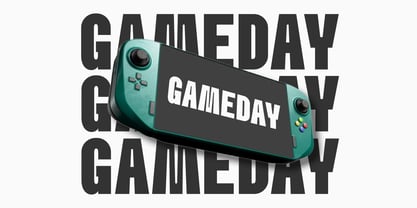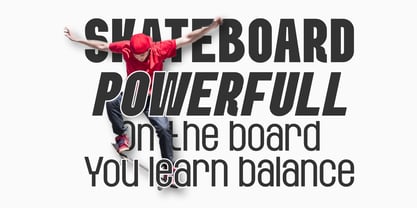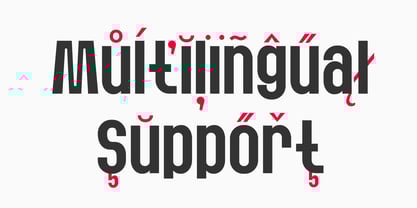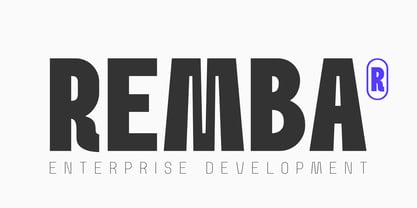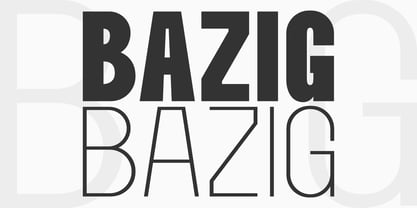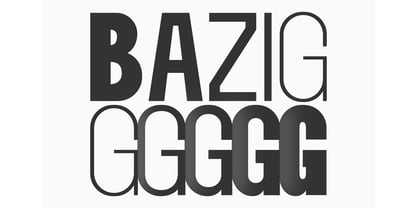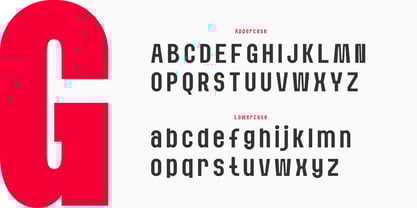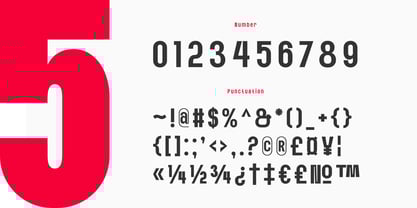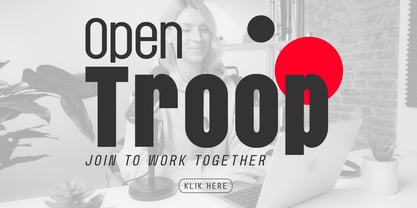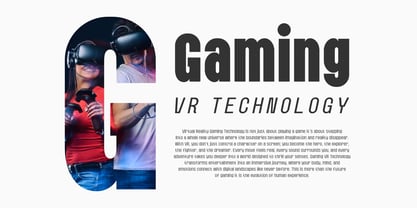
Bazig
by Sealoung
The Bazig Font Family was designed by Saiful Anwar and published by Sealoung. Bazig contains 10 styles and family package options. More about this family
Bazig Modern Sans Serif Family – Thin to Bold & Italic Bazig is a modern sans serif typeface family with a clean, elegant, and versatile look. It comes in styles from Thin to Bold, complete with Italic versions, giving you full flexibility for any design project. Designed with a perfect balance between sharp lines and minimalist forms, Bazig is ideal for both professional and creative use, such as: Branding & Logo Design Headlines & Editorials Posters & Banners Websites & Mobile Apps Presentations & Print Materials Features: 10 Styles (Thin to Bold + Italic) Full multilingual support (Western, Central, and Eastern European languages) Includes uppercase, lowercase, numbers, and punctuation With its wide range of weights and italics, Bazig makes it easy to build strong, modern, and aesthetic typography for any project.
Designers: Saiful Anwar
Foundry: Sealoung
Bazig